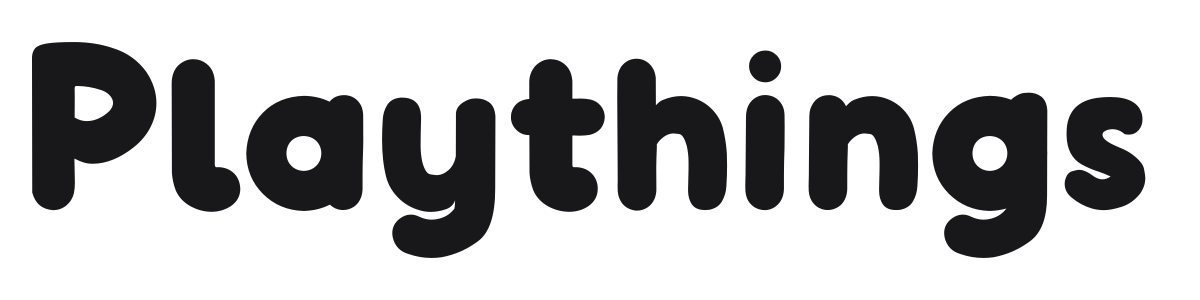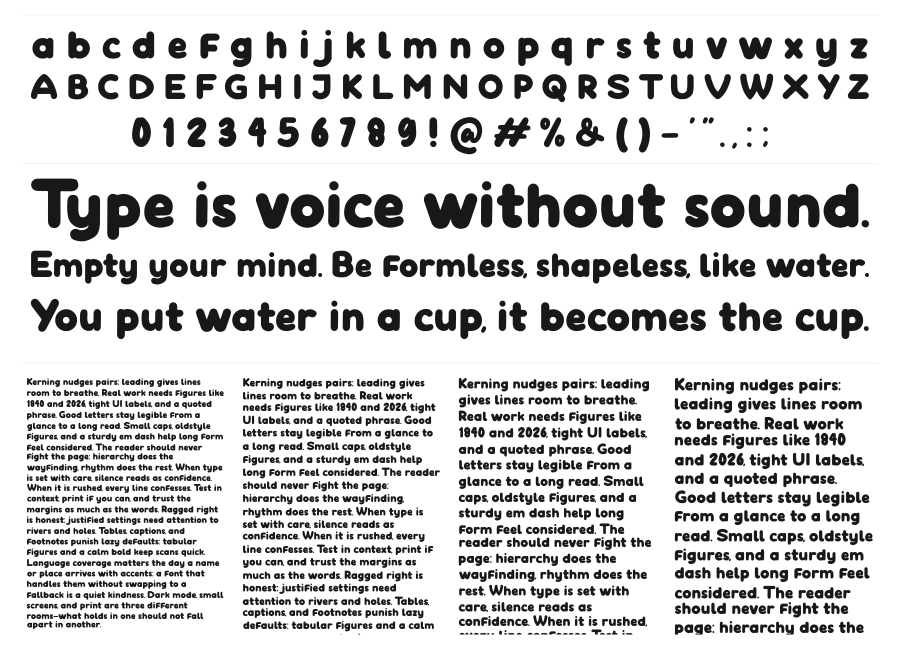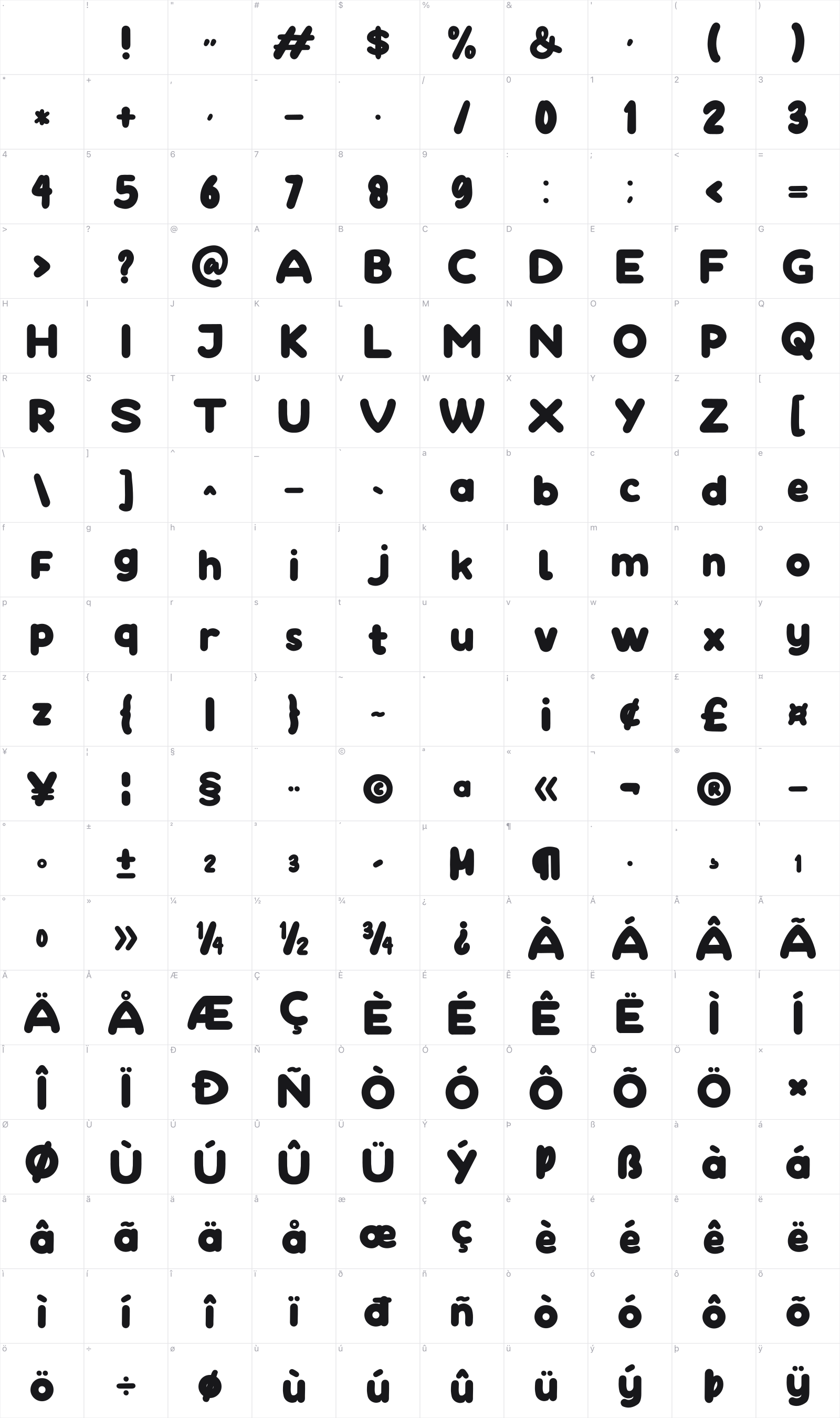
Playthings
Playthings is a bold rounded sans with wide, pillowy characters and soft inflated terminals that give it an irresistible bubbly energy. It sits somewhere between a geometric rounded grotesque and a casual hand-drawn feel, making it feel warm without being sloppy. Strong for children's branding, playful packaging, and any headline that needs personality.